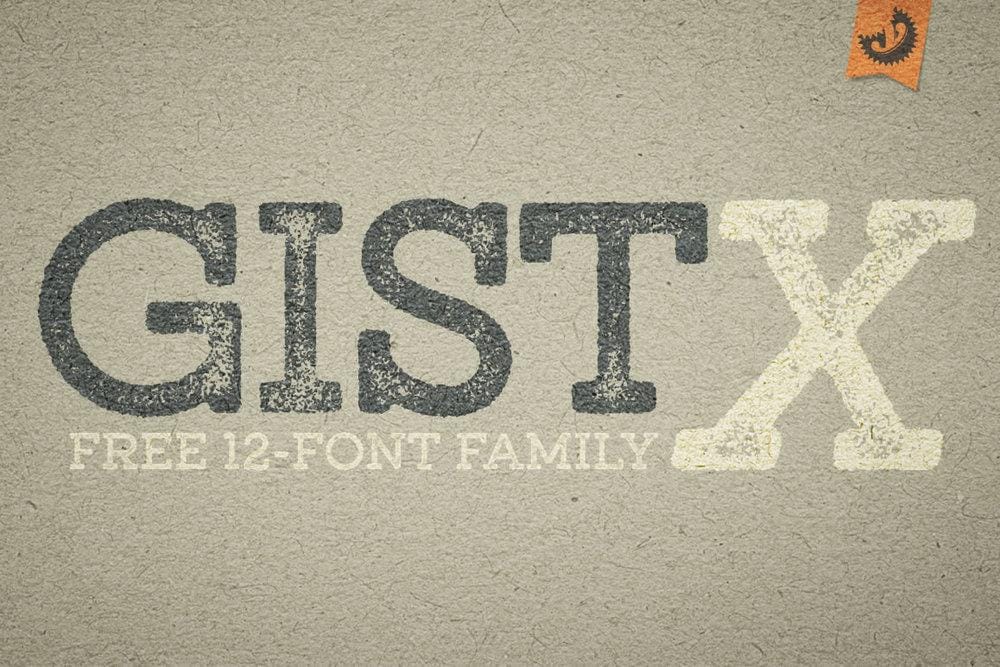
GistX Free Font Family
GistX is a versatile font family designed to add character to your projects. Comprising 12 fonts, it includes Light, Regular, and Bold variations in both upright and slanted formats. Each style also features two distinct distress versions, which lend an authentic touch to the overall design.
This font family merges traditional slab-serifs with elements of indie script, creating a distinct and modern appearance. The standard characters maintain classic letterforms, ensuring readability and elegance. In contrast, the alternate characters introduce playful swashes and curves, adding flair and personality.
Whether you’re working on a poster, branding, or any creative project, GistX brings a vintage yet contemporary feel. Its unique combination makes it a great choice for those seeking something different yet familiar.